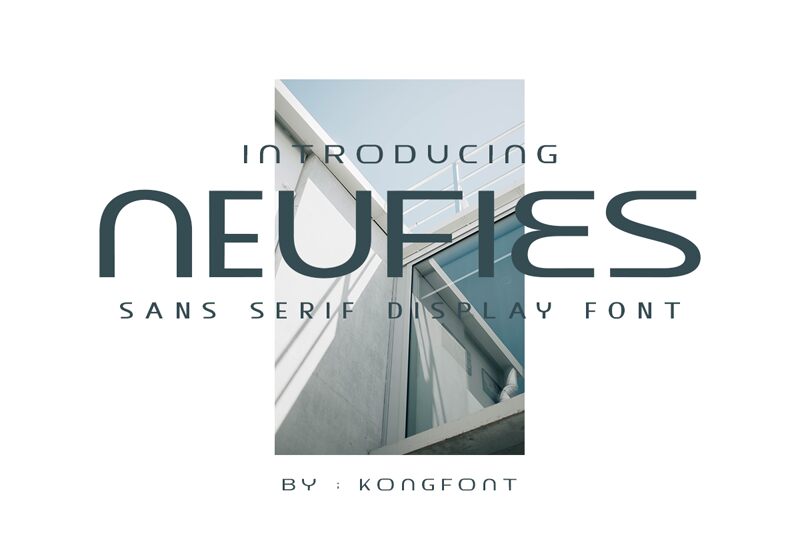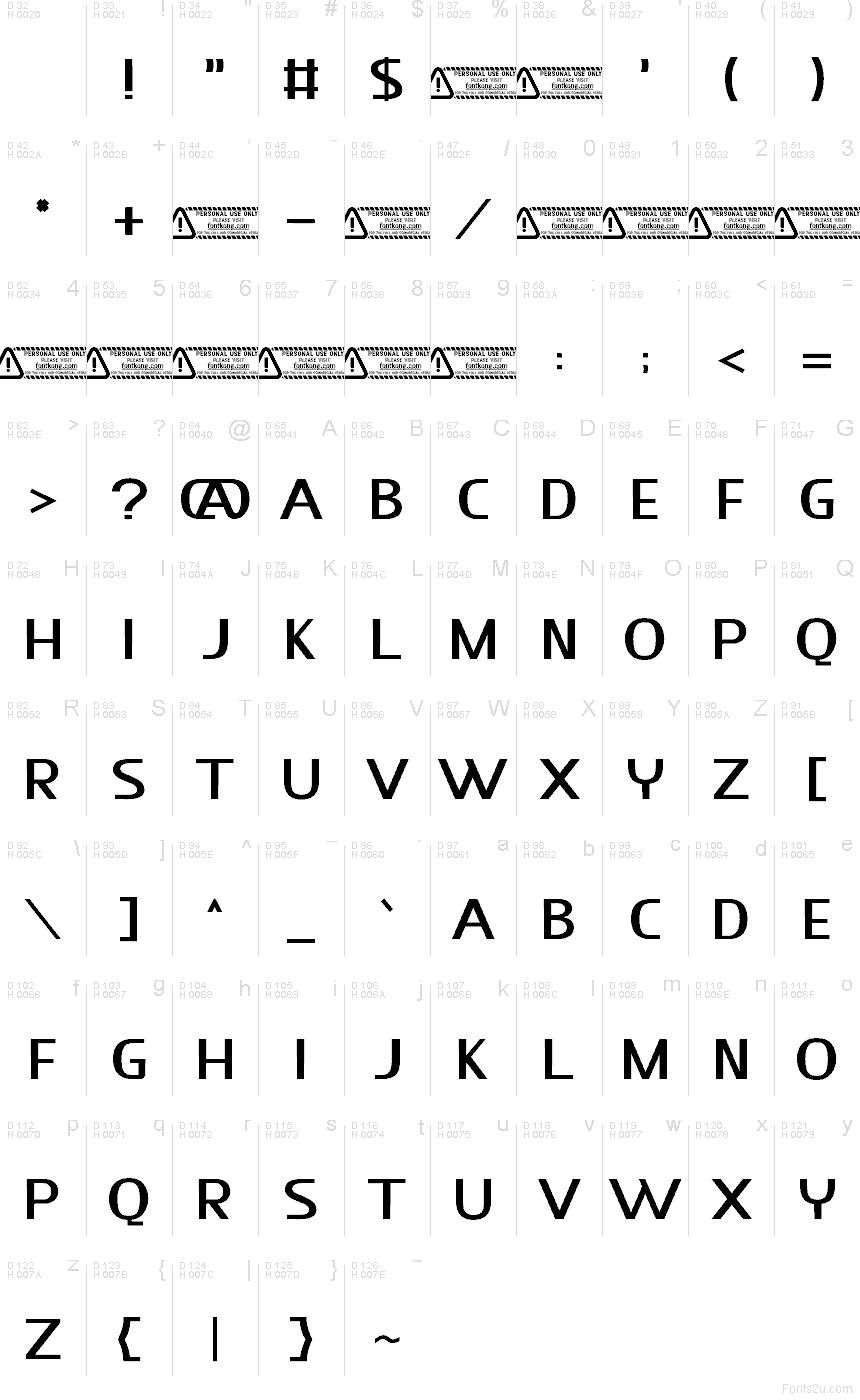
Neufies font by Kong Font is a free futuristic display typeface with a sleek, compressed stance that feels engineered for speed. Tall, tightly spaced letters form a solid wall of black, while the clean cuts and smooth verticals give it a sci‑fi, high-tech sheen. It looks like something stamped on starship hulls—bold, efficient, and unapologetically modern.
Using Neufies, you get a headline voice that commands attention without needing extra effects or textures. This free font works beautifully for gaming covers, sci‑fi posters, tech branding, esports logos, movie titles, and bold website hero text. Keep it large and tight to amplify its impact, and pair Neufies with a light, neutral sans serif for body copy to let its condensed power really stand out.